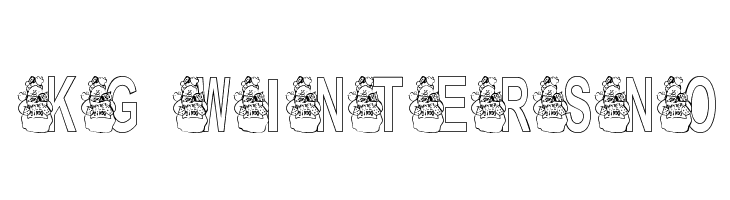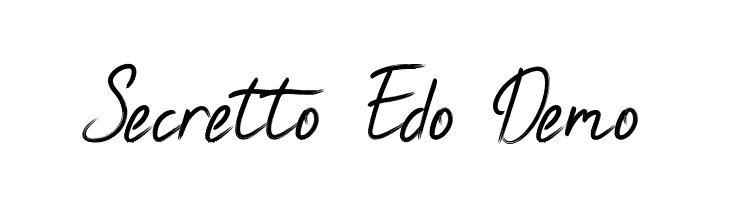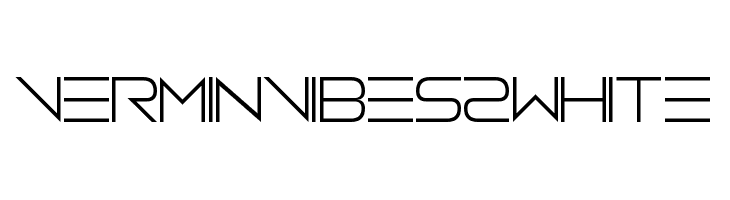
A dynamic and expressive script font with fluid, sweeping strokes.
A bold, italic font with a modern and dynamic style.
A playful and elegant script font with flowing, cursive design.
A decorative font with snowman-themed letters, perfect for festive projects.
A bold, playful font with exaggerated, uneven letterforms.
A bold, modern font with geometric lines and a slightly condensed style.
A whimsical decorative font with angel illustrations atop each character.
A pixelated, edgy font with a retro digital aesthetic.
A bold, geometric font with strong, uniform letterforms.
A modern, double-line font with a playful and geometric style.